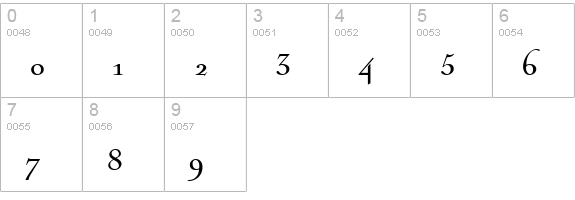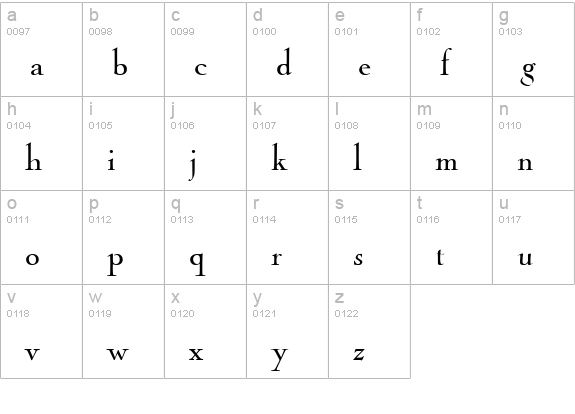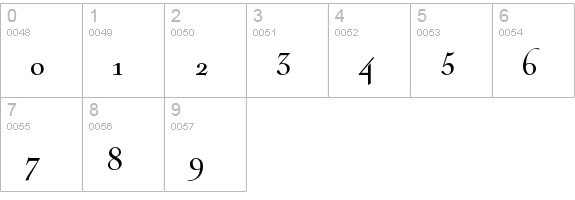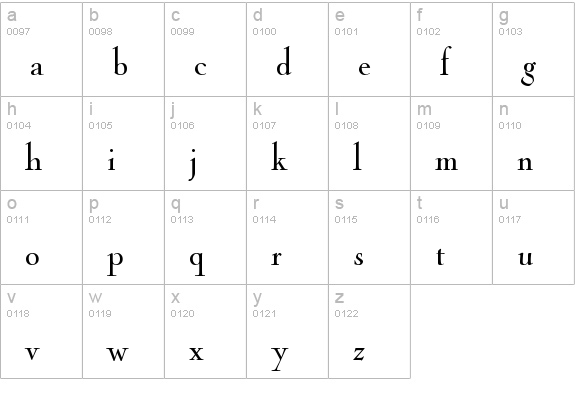
NicolasCocTReg Font Details
NicolasCocTReg is a uniquely elegant and versatile font that blends classic sophistication with a contemporary edge. With its clean lines and stylish curves, this font is perfect for a wide range of design projects, from branding to editorial design. The timeless appeal of NicolasCocTReg makes it a must-have addition to any designer's toolkit. What sets NicolasCocTReg apart is not only its stunning aesthetics but also the fact that it is available for free download at FontsMarket.com. This means that you can elevate your designs without breaking the bank. Whether you're working on a logo, packaging, or website, NicolasCocTReg offers endless possibilities for creative expression. Download this exceptional font today and see your designs come to life with sophistication and flair.